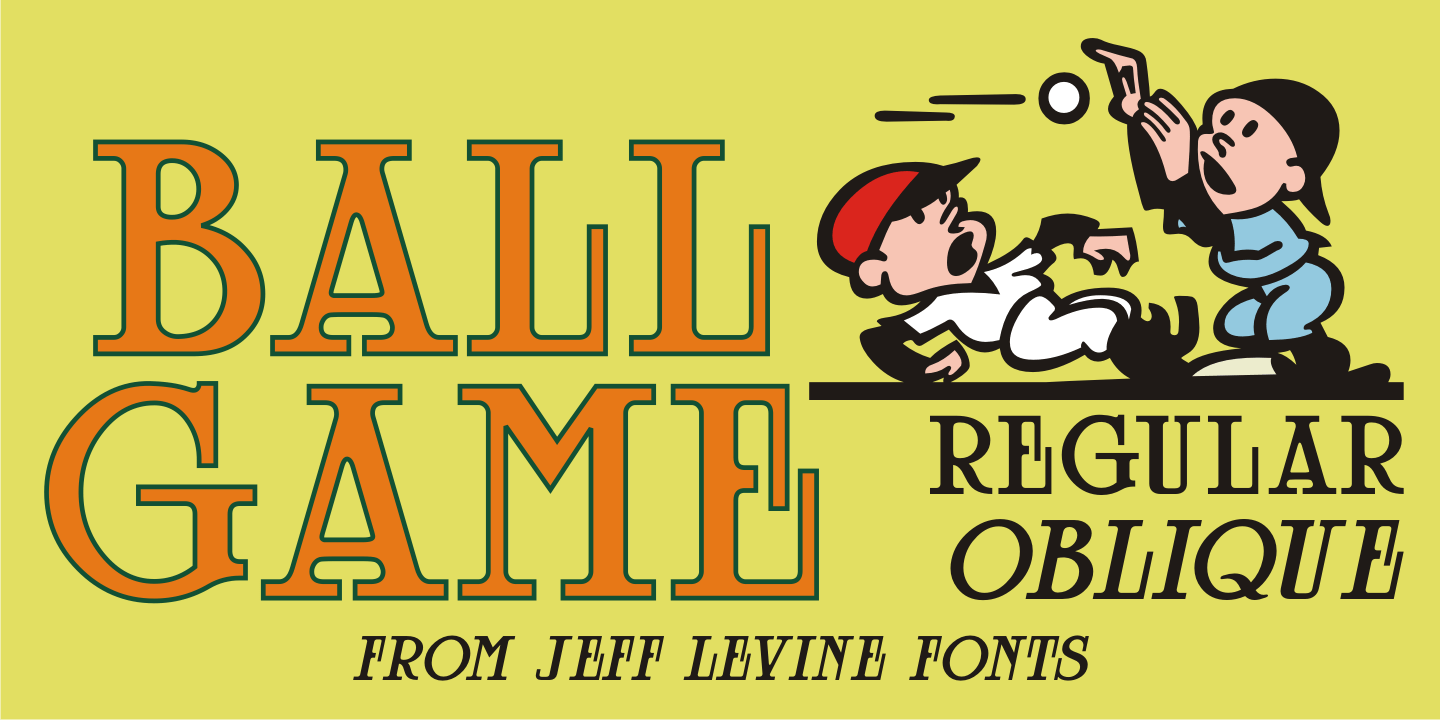
Ball Game
What has become a rite of passage at baseball games got its start in 1908 when lyricist Jack Norworth and music composer Albert Von Tilzer wrote 'Take Me Out to the Ball-Game” (which was published by Von Tilzer's York Music Company).
The Art Nouveau hand lettered title on the cover of the sheet music was eccentric and attractive enough to warrant being turned into a digital type face, and in honor of its namesake song is called Ball Game JNL; available in both regular and oblique versions.